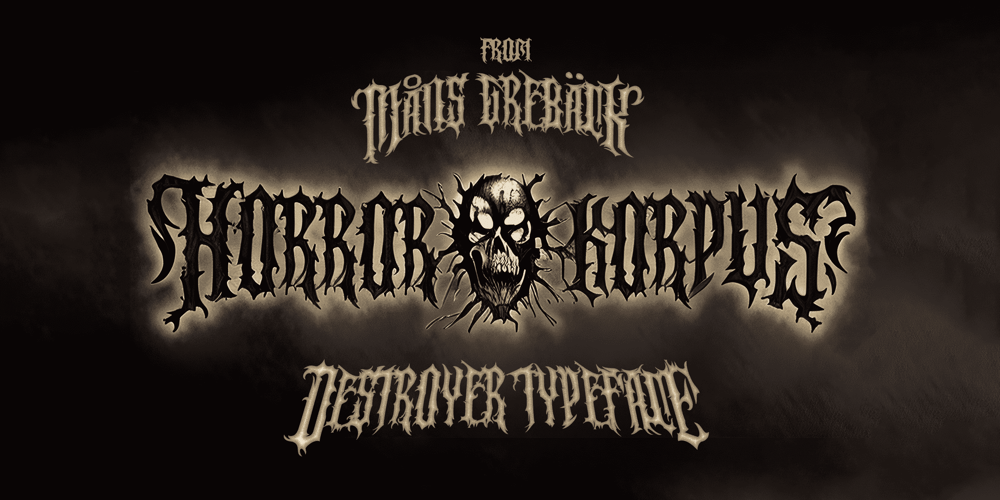
Horror Korpus Font Family was designed by Måns Grebäck and published by Mans Greback. Horror Korpus contains 2 styles and family package options. Horror Korpus is an artistic rebellion, a statement against the clean and the pristine, evoking the gritty scenes of a horror movie into your design. With flames burning in its strokes and a wild, untamed demeanor, this rough font wears a garment of distress, with eroded and destroyed textures that screams an extreme temperament. It stands defiant, bearing a resemblance to edgy tattoo designs that adorn the bravest of souls.